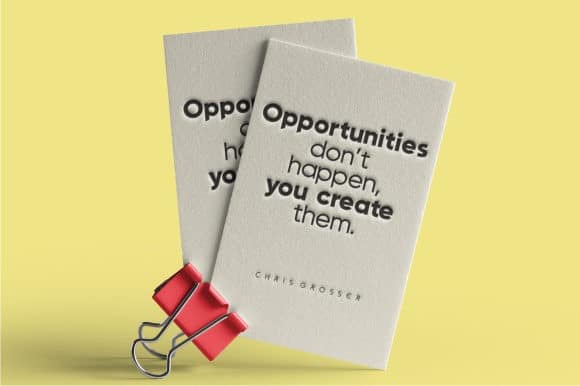
Andromeda Display Font
Andromeda Sans Display famous logos of Technology and brands that have very strong characteristics, very suitable for posters, t-shirt, packaging, branding, logotype and more. It’s designed and shared by CreativeKiller. This typeface is a futuristic and elegant font coming in two distinct weights. This elegant sans serif font will deliver any message with confidence and style.